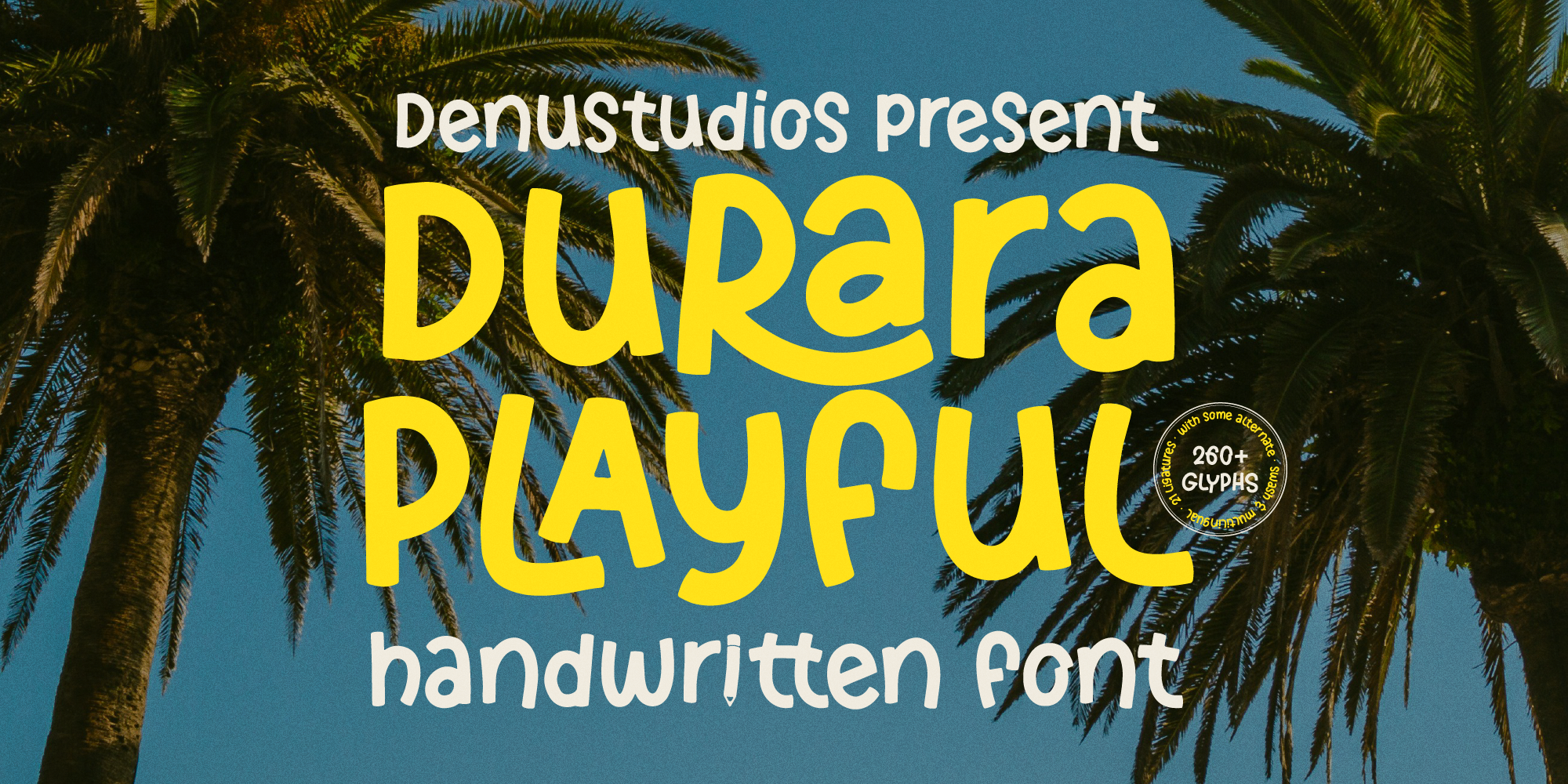
Durara Playful Font is perfect for children's entertainment branding, fun educational materials, playful party invitations, colorful toy packaging, kid-friendly restaurant menus, cheerful birthday decorations, animated character designs, family event promotions, joyful greeting cards, and whimsical creative projects. This delightful typeface creates authentic playful atmosphere in both vibrant print and digital entertainment applications.
What makes Durara Playful Font exciting is its irresistible combination of bouncy energy with genuine childhood charm that captures the pure joy of play and imagination. The font features lively letterforms with playful bounce effects and cheerful character details that evoke laughter, games, and carefree fun. Its joyful design establishes an atmosphere of pure happiness and playful creativity that resonates with children and families seeking authentic entertainment experiences and joyful celebrations.
Durara Playful Font family includes joyful variations: Light, Regular, Medium, Bold, and Bounce versions, each with playful alternates and cheerful character sets. Each variant maintains the font's playful personality while providing designers with fun options for creating entertaining typography systems and joyful communication materials.
This exceptional playful typeface brings authentic entertainment credibility to projects requiring fun presentation. Whether you're designing children's brands, family entertainment marketing, or playful event materials, Durara Playful Font Free Download delivers outstanding joy and playful sophistication. The font's bouncy proportions and cheerful details ensure memorable fun connection across various entertainment applications.
Children's brands and family entertainment companies recognize how Durara Playful Font perfectly captures the essence of childhood joy and playful imagination. Its entertaining foundation combined with genuine cheerfulness makes it essential for children's and family-oriented design projects. Download today and play with your designs using this exceptionally joyful entertaining typography.